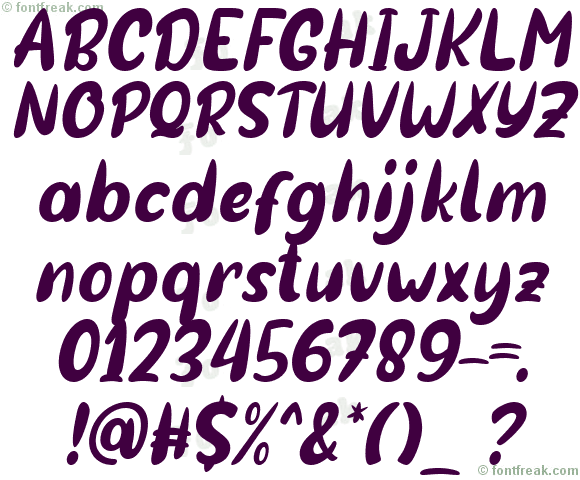
Sotis Italic
About Sotis Italic
Sotis Italic is a captivating display font designed by Situjuh Nazara, categorized as a decorative typeface. This font exudes a playful yet sophisticated charm, perfect for a variety of applications. Characterized by its moderate stroke weight and subtle contrast, the Sotis Italic features elegant curves that lend a sense of fluidity and movement. The spacing is thoughtfully balanced, ensuring legibility while still maintaining a whimsical aesthetic. Its distinctive italic slant adds an element of dynamism, making it visually engaging.
This versatile font is ideal for numerous creative projects. It shines in wedding invitations, where its artistic flair can beautifully convey romance and celebration. For restaurant menus, Sotis Italic can enhance the dining experience, providing a touch of elegance that complements the culinary presentation. Additionally, it works wonderfully for movie posters, catching the eye with its unique character and adding a layer of intrigue. Graphic designers will find it effective in branding projects, helping businesses stand out with a memorable visual identity. Content creators can also leverage this font for social media graphics, where its charm can draw attention and resonate with audiences.
Targeted towards graphic designers, small business owners, and content creators, Sotis Italic offers a fresh and engaging typographic option. The font's freeware license ensures that it is accessible, allowing users to incorporate it into their projects without any cost barriers. The Sotis Italic font free download opens the door for creativity and innovation, making it a valuable asset in any designer's toolkit. Its unique blend of playfulness and sophistication sets it apart, ensuring that projects utilizing this font leave a lasting impression on their audience.